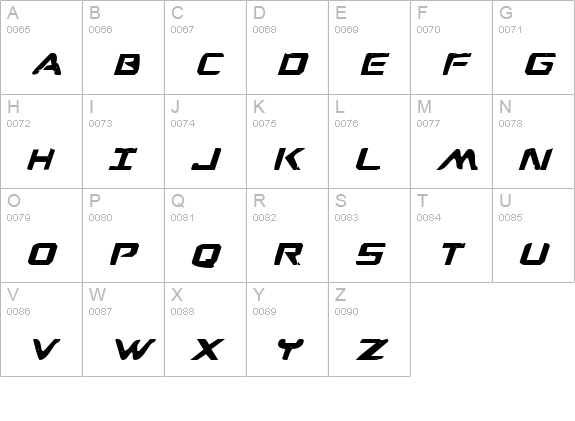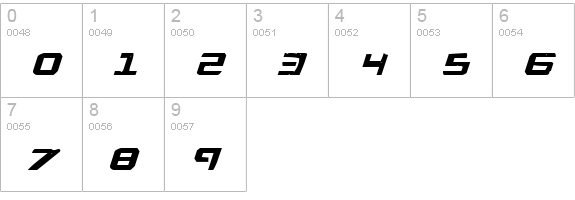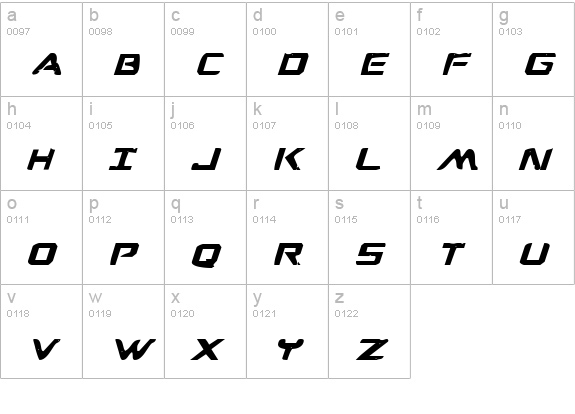
War Eagle Bold Italic Font Details
War Eagle Bold Italic is a strong, high-contrast, italic variant in the War typeface family \xE2\x80\x94 well suited to headlines, attention-grabbing titles, and strong calls-to-action.
War Eagle Bold Italic font is a striking and powerful typeface that exudes confidence and sophistication. Its bold strokes and dynamic italics make it perfect for creating eye-catching designs that demand attention. The font is versatile and can be used for a wide range of projects, from branding to editorial design. What sets War Eagle Bold Italic font apart is not only its bold and italicized style but also its exceptional legibility and readability. Whether used in headlines, logos, or body text, this font ensures that your message is conveyed clearly and effectively. The best part is that War Eagle Bold Italic font is available for free download at FontsMarket.com. This means you can easily access and use this stunning typeface in your projects without any cost. Don't miss out on this opportunity to elevate your designs with the bold and dynamic War Eagle Bold Italic font.